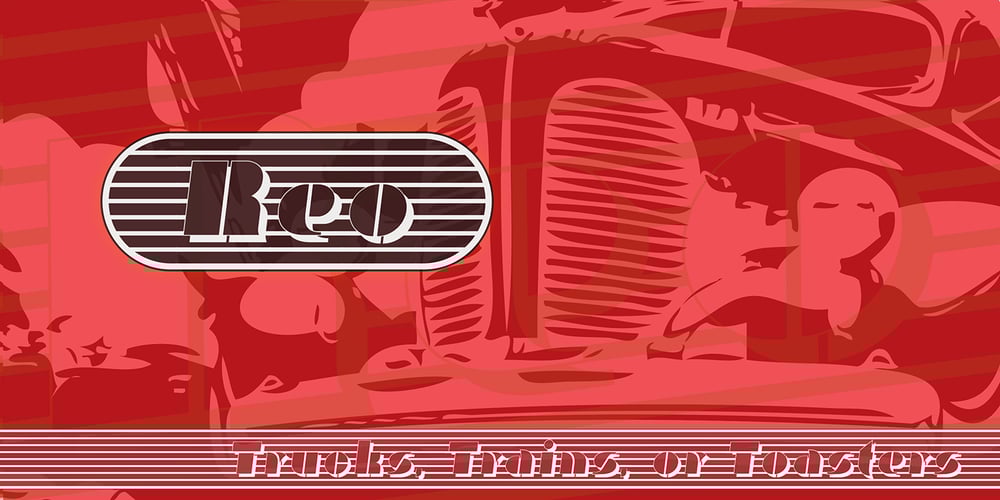
Reo Font Family was designed by Russell A. McGorman and published by Our House Graphics. Reo contains 2 styles and family package options. Reo is a novel two layered, display font with a decidedly retro look and feel, inspired by the toothy grins of 1930�s and 40�s era truck grilles and the gleaming, streamlined efficiency of the automat. Reo Front (Foreground) is where all the detail resides, and Reo Back provides a background layer.